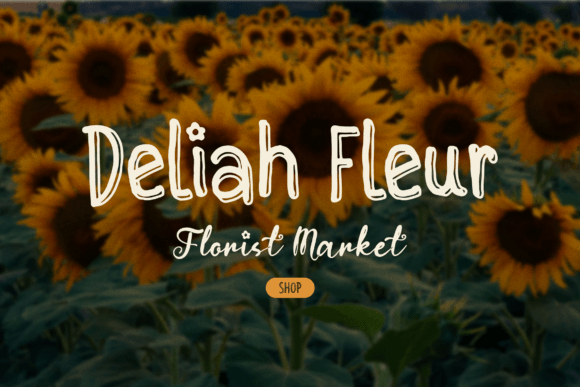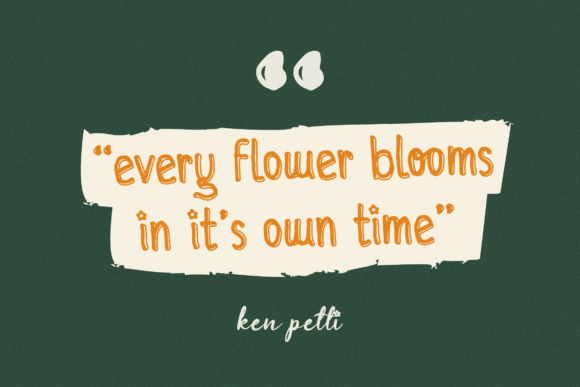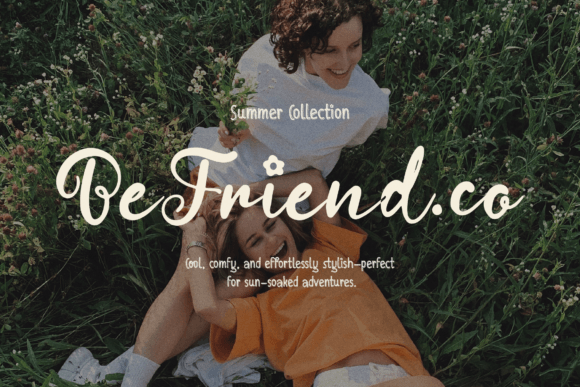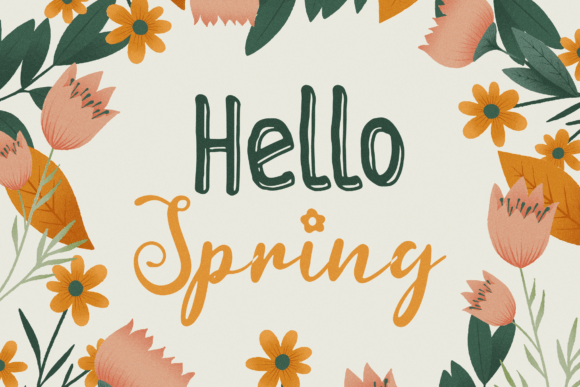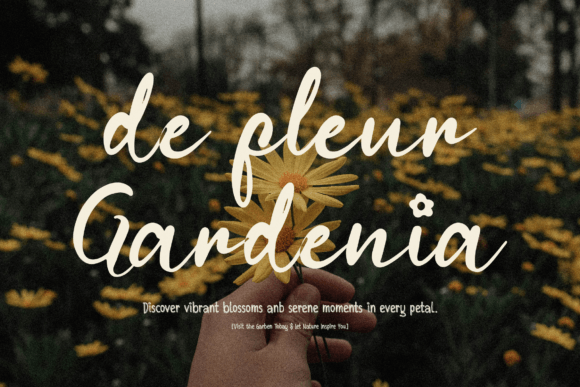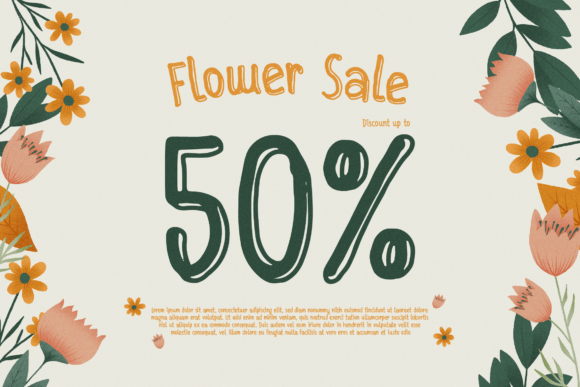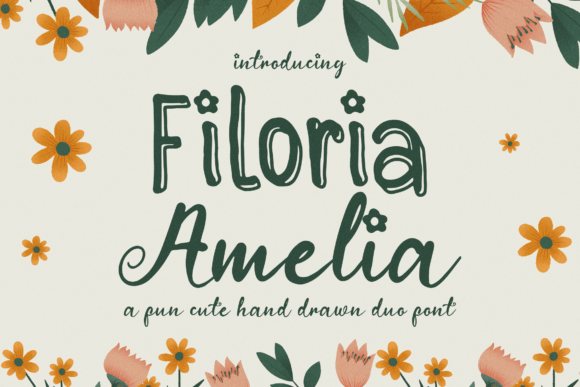
Discover the Delightful Filoria Amelia Font: A Cute Hand-Drawn Duo
Are you on the hunt for a font that exudes warmth, playfulness, and joy? Look no further than the Filoria Amelia Font, a charming hand-drawn duo that is sure to capture your heart. This delightful font features two unique characters, each with their own distinct personality, making it perfect for designers and crafters looking to add a touch of whimsy to their projects.
What Makes Filoria Amelia Font So Special?
Filoria Amelia is a one-of-a-kind font that boasts a simple yet playful design. The duo’s hand-drawn style gives it a personal and endearing feel, making it ideal for a wide range of applications, from digital illustrations to craft projects. Whether you’re creating a children’s book, a greeting card, or a social media graphic, Filoria Amelia is sure to bring a smile to your audience’s faces.
Meet the Charming Characters
The Filoria Amelia Font features two main characters, each with their own unique personality. The first character is a sweet and gentle soul, with a soft and delicate design that is sure to melt hearts. The second character, on the other hand, is a bit more playful and mischievous, with a bolder and more adventurous vibe. Together, these two characters bring a sense of balance and harmony to the font, making it perfect for a wide range of creative projects.
Filoria Amelia Font is a dream come true for designers and crafters looking for a font that is both fun and functional. The font’s hand-drawn style makes it perfect for:
- Illustrations and digital art
- Craft projects, such as scrapbooking and journaling
- Children’s books and educational materials
Why Choose Filoria Amelia Font?
- Unique and eye-catching design: Filoria Amelia Font is a one-of-a-kind font that is sure to grab attention.
- Hand-drawn style: The font’s hand-drawn style gives it a personal and endearing feel.
- Playful and fun: Filoria Amelia Font is perfect for projects that require a playful and fun touch.
- Versatile: The font can be used for a wide range of applications, from digital illustrations to craft projects.
In conclusion, Filoria Amelia Font is a charming hand-drawn duo that is sure to bring warmth and joy to any project. With its simple yet playful design, this font is perfect for designers and crafters looking to add a touch of whimsy to their work. Whether you’re creating a children’s book, a greeting card, or a social media graphic, Filoria Amelia Font is sure to delight your audience and leave a lasting impression.